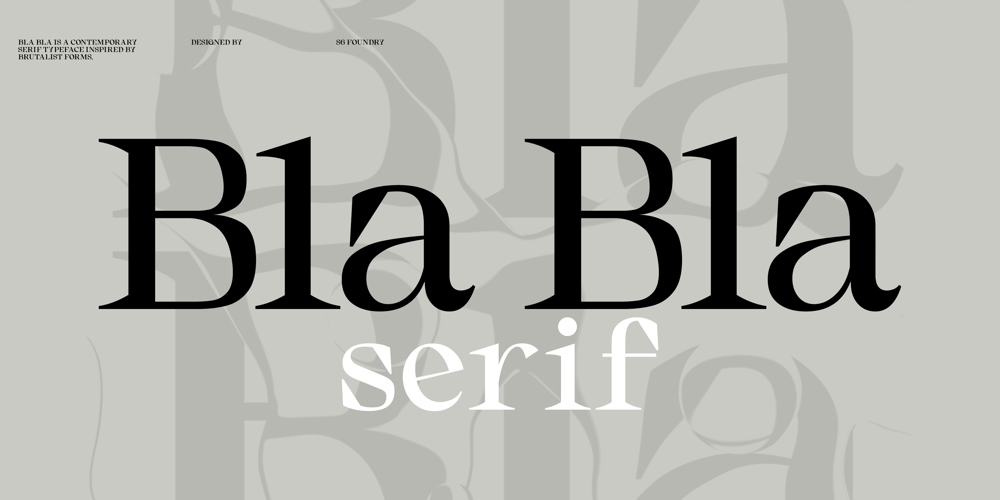
Bla Bla
Bla Bla font
Bla Bla Font Family was designed by Paul Henry Robb and published by S6 Foundry. Bla Bla contains 5 styles and family package options. Bla Bla is a contemporary serif typeface inspired by brutalist forms, featuring large open counters, curved, round forms, creating a modern & elegant glyph set. The organic curves with gentle repetitions create powerful and harmonious forms. Designed to be a stylish modern family it is perfect for communication and branding projects.